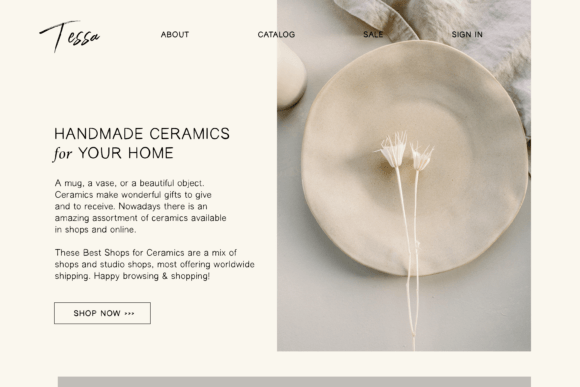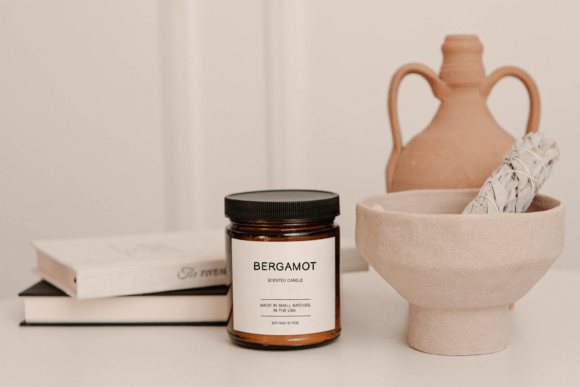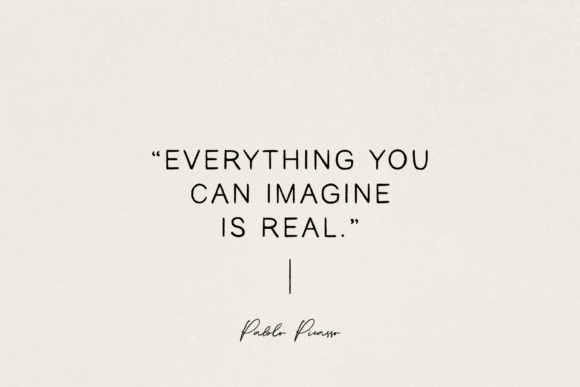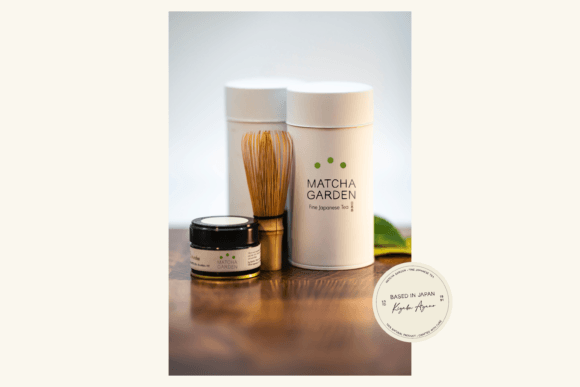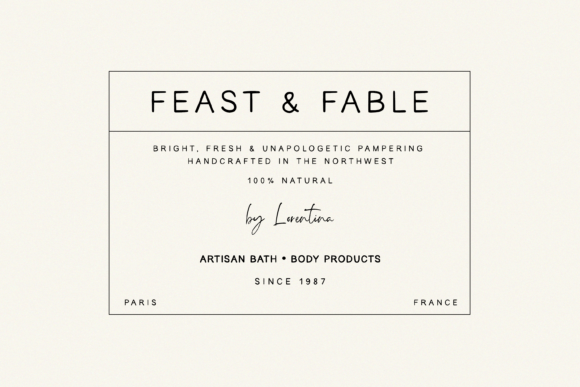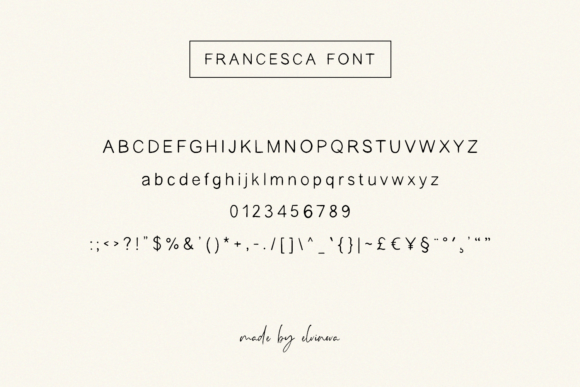
The Sweet Spot: Discovering Francesca Font
I’ll never forget the time I was working on a project for a client’s birthday party invitation. I had all the design elements in place – the colors, the graphics, the overall aesthetic – but something was missing. The font I had chosen just wasn’t doing it for me. It was too formal, too stiff, too… boring. I needed something with a bit of personality, something that would make the invitation feel more like a celebration. That’s when I stumbled upon Francesca Font.
A Personal Review: What I Love About Francesca
Francesca Font is a sweet and simple handwritten sans-serif font that has become a go-to in my design toolkit. Here’s what I love about it:
- ✨ Friendly and playful style that’s perfect for cards, invitations, and fun designs
- ✅ Soft curves that make it easy to read while adding a personal, creative touch
- 💕 Highly versatile – works well for both digital and print projects
- 👍 Great for designs that need a bit of whimsy and charm
While Francesca Font is an amazing addition to any design project, there are a few things to keep in mind:
- 🤔 May not be the best choice for very formal or corporate designs – it’s a bit too playful for that
- ⚠️ Some of the characters may not be suitable for use in very small font sizes – it’s best used at larger sizes where its charm can shine
The Story Behind Francesca Font
Francesca Font was designed with the intention of creating a font that was both simple and sweet. The designer, [imaginary designer name], wanted to create a font that would be perfect for everyday designs – cards, invitations, and more. With its soft curves and friendly style, Francesca Font is sure to bring a touch of personality to any project.
Q: What type of projects is Francesca Font best suited for?
A: Francesca Font is perfect for cards, invitations, and fun designs that need a bit of whimsy and charm.
Q: Is Francesca Font available in different weights or styles?
A: Francesca Font comes in a range of weights and styles, making it versatile for different design projects.